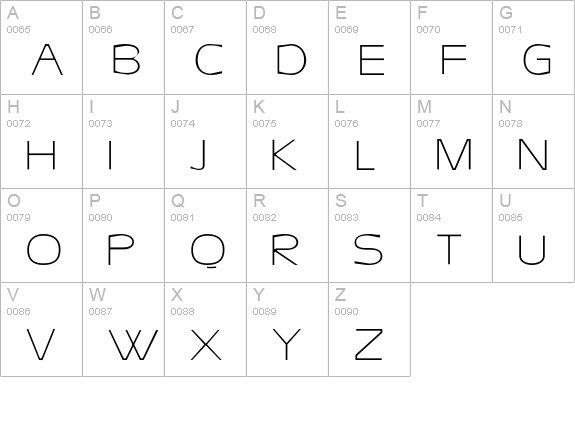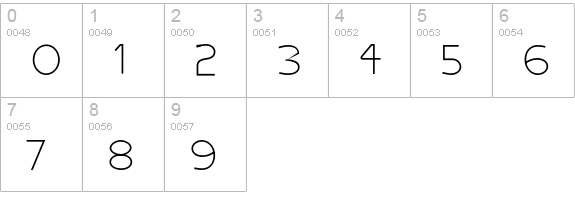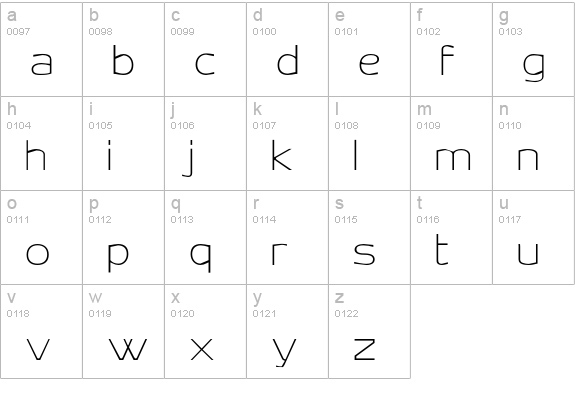
Undine Font Details
Undine font is a captivating and elegant typeface that effortlessly combines modernity with classic charm. Its graceful letterforms and delicate strokes make it the perfect choice for projects that require a touch of sophistication and refinement. The smooth curves and balanced proportions of Undine font exude a sense of harmony and tranquility, making it a versatile choice for a wide range of design applications. Whether used for branding, editorial design, or even personal projects, this font will add a touch of elegance and professionalism to any composition. Undine font is not only aesthetically pleasing but also highly legible, ensuring that your message is conveyed with clarity and impact. Each character has been meticulously designed to maintain readability even at smaller sizes, making it suitable for both print and digital mediums. What sets Undine font apart is its unique blend of modernity and tradition. The sleek lines and contemporary sensibility of the typeface are complemented by subtle nods to classical typography, resulting in a font that feels both timeless and fresh. And the best part? Undine font is available for free download at FontsMarket.com. This means that you can enjoy the beauty and versatility of this typeface without any financial constraints. Whether you are a professional designer or a hobbyist, you can freely access and utilize Undine font in your projects, adding a touch of elegance and sophistication without breaking the bank. So why wait? Download Undine font today from FontsMarket.com and elevate your designs with its timeless beauty and refined charm. Let this exquisite typeface be the perfect companion for your creative endeavors, bringing your ideas to life with grace and style.